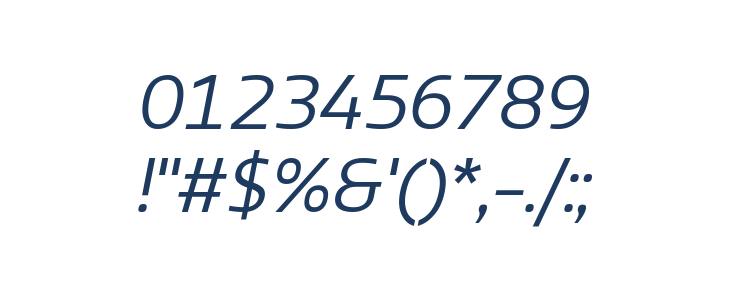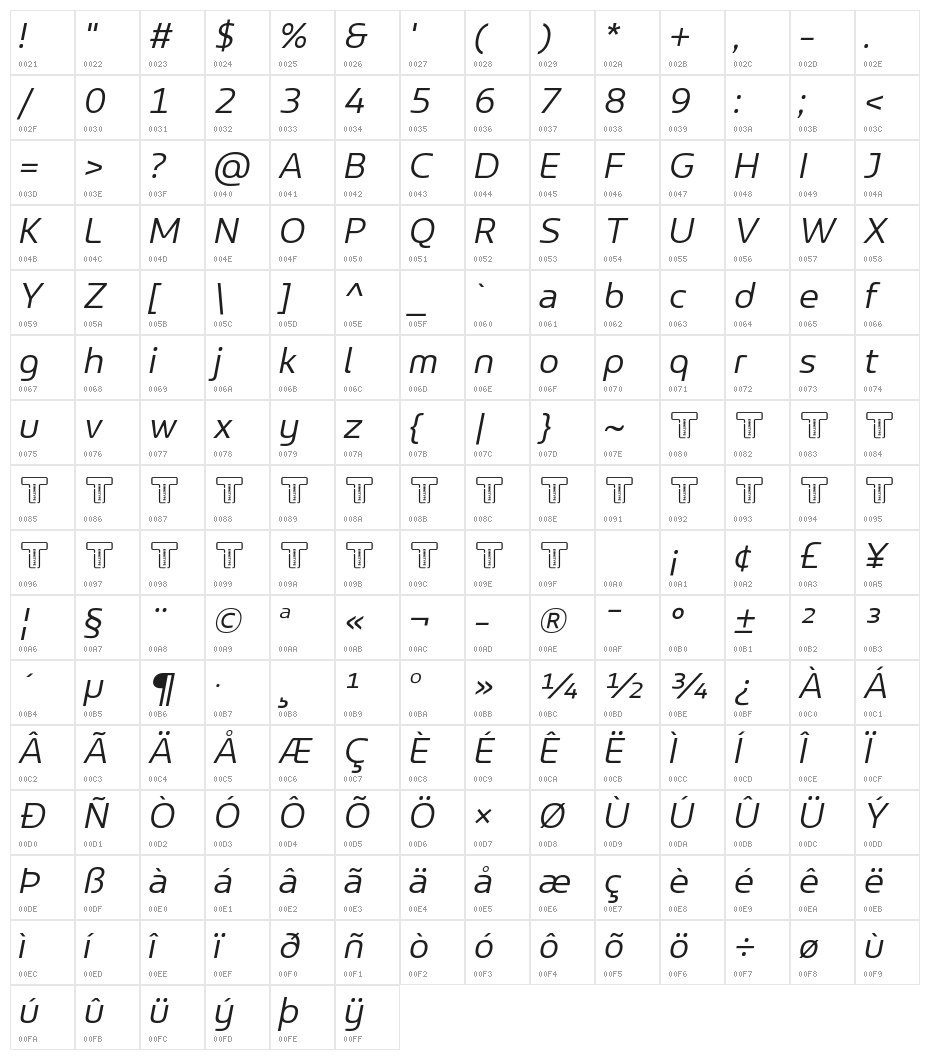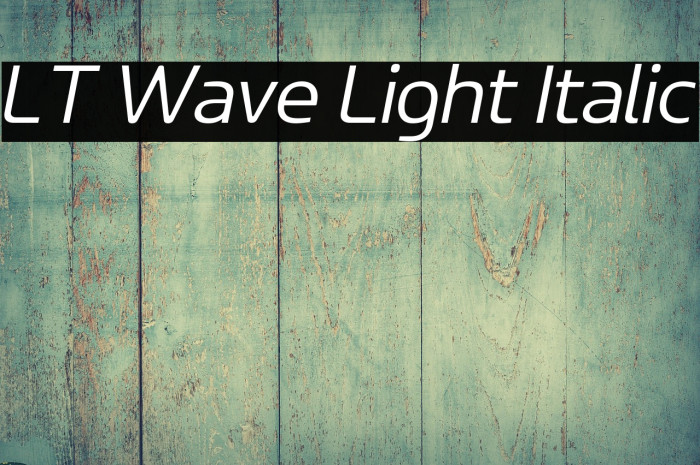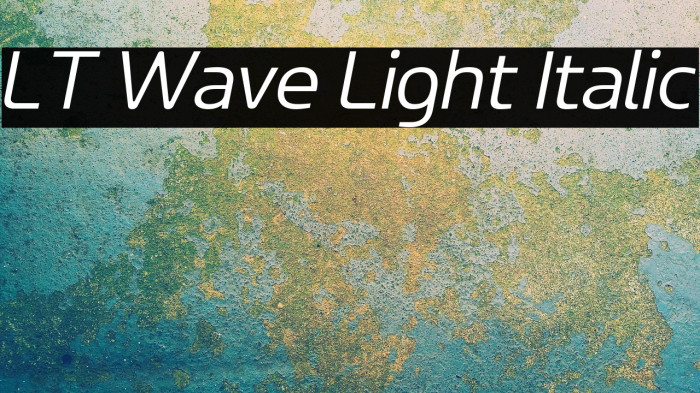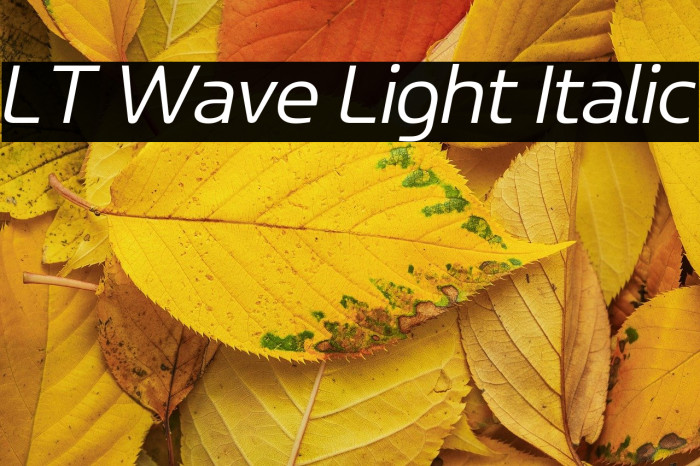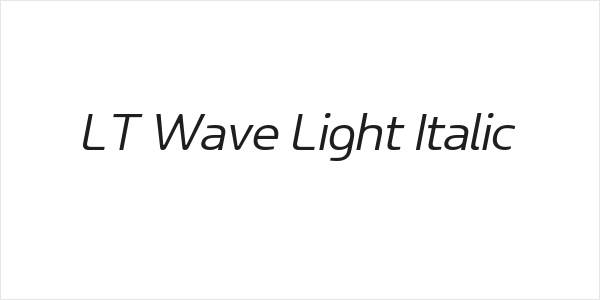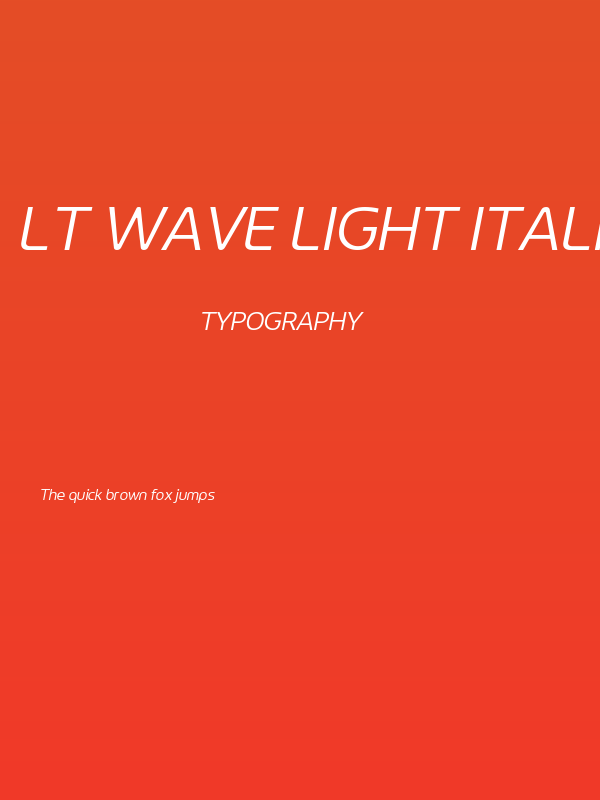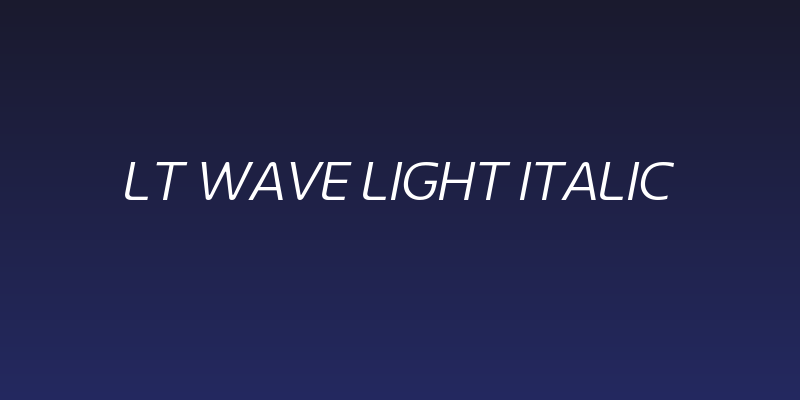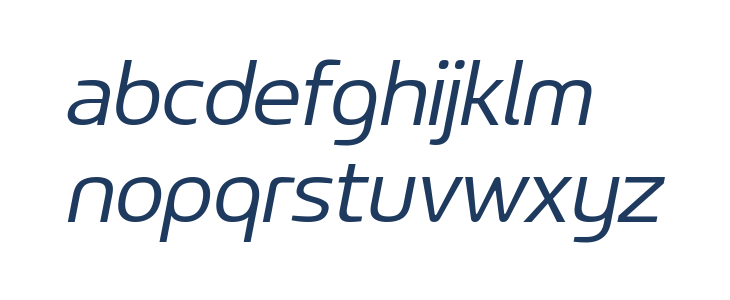
LT Wave Light Italic Font
LT Wave Light Italic Description
This font features a sleek, modern design with a light weight and italic style. The characters are slightly slanted, giving it a dynamic and fluid appearance. The strokes are consistent and smooth, with a medium contrast that enhances readability while maintaining a stylish look. The font has a clean and contemporary feel, making it suitable for a variety of design applications. The character spacing is normal, ensuring clarity and legibility across different sizes. Its elegant curves and streamlined form make it an excellent choice for projects that require a touch of sophistication.